Freaky Font Meme
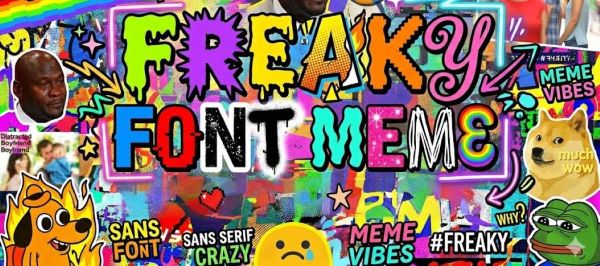
If you’ve ever wanted to take your meme game to the next level, the right font can make all the difference. From rage faces to viral icons, a great freaky font meme can instantly transform a blank canvas into something the internet can’t stop sharing. Here are 5 of the wildest meme fonts you need to know about.
Memes
This dingbat font by jopea302 is a meme lover’s dream, packing 236 iconic meme characters into a single typeface. Released back in 2011, it has racked up over 220,000 downloads and remains a go-to for creators who want instant meme energy. Best of all, it’s completely free to download and use.
Viral Fun
Created by Xerographer Fonts, Viral Fun is a dingbat font designed to capture the chaotic charm of internet humor. With 43 glyphs full of fun and expressive characters, it’s perfect for adding a playful, shareable feel to any design. It’s available as donationware, so you can grab it and tip the creator if it sparks joy.
Far.Chehre
Far.Chehre, designed by Abolfazl Seilsepour, is a bold dingbat font featuring 236 expressive face glyphs that feel right at home in meme culture. With over 182,000 downloads since 2012, it has clearly found a massive audience among digital creators. It’s 100% free, making it an easy pick for any project.
The Meme Font
Living up to its straightforward name, The Meme Font by zanatlija is one of the most downloaded meme dingbat fonts on DaFont with over 309,000 downloads. It covers a full set of 236 glyphs, giving you plenty of expressive options for any meme scenario. The creator describes it as an amateur design — but the numbers don’t lie.
Memetica
Memetica by Rodolfo Santos is all about rage faces, delivering 123 glyphs of the classic internet expressions that defined early meme culture. With over 167,000 downloads since its 2011 debut, it’s a proven staple for anyone chasing that vintage meme aesthetic. It’s free to download, so there’s zero reason not to add it to your font collection.